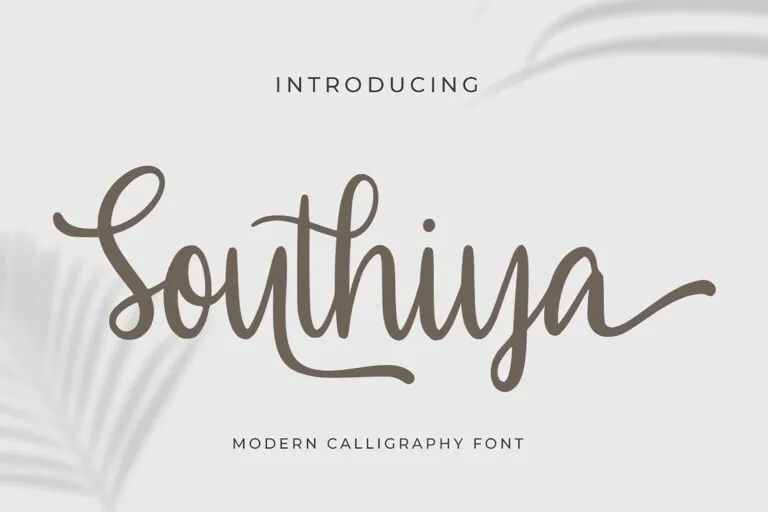
31 Best Magazine Cover Fonts for Awesome Text and Titles
The right magazine cover fonts are like a magical power. For hundreds of years, fonts have appealed to people and left a lasting image. Whether you’re creating a cutting-edge fashion magazine or a mouth-watering food magazine, you’ll always need an innovative font.
When it comes to editorial design, choosing the right font can be a big challenge. You can express your creativity and add the preferable font for you, while editing your images, to make them look more enticing. The fonts don’t only convey your mind’s eye but are also readable. Here, you will explore fonts and find out how they can carry your brand.
The Best Magazine Cover Fonts
You need something that works not just for the cover itself, but something that can lead customers’ eyes to flip through page after page. This font collection will give you multiple typography options for your publications’ needs.
Ahmad Bantani
Ahmad Bantani Font
Ahmad Bantani is a simple handwritten signature script font. Its beautiful characters will match your wide pool of designs.
Ving Winston
Ving Winston Font
Ving Winston is a handwriting-like script font to beautifies all types of magazine designs.
Fathony King
Fathony King Font
Fathony King is a modern script typeface. This one of the best magazine fonts has been created to make your title and text look elegant.
Mugen Ragi
Mugen Ragi Font
Mugen Ragi has ethereal curves and precision lines. It’s a good font choice for fashion and luxury brand magazines.
Alatas Script
Alatas Script Font
Alatas Script will be a good fit for headlines or magazine cover fonts of interior design or architecture magazines with its high contrast strokes and thin letter weight lines.
Bung Virgi
Bung Virgi Font
Bung Virgi can be a great deal for various kinds of magazine niches with its minimalist script style.
Tajur Puncak
Tajur Puncak Font
Tajur Puncak is an authentic handwritten font with soft flowing letters. It brings beauty and balance to your cover designs.
Ramly Zatins
Ramly Zatins as Magazine Cover Font
Ramly Zatins will bring your brand to an expensive yet expressive image with its delicate wavy lines.
Franky Rain
Franky Rain as Magazine Cover Font
Franky Rain is a gorgeous handmade signature script font. Bringing out graceful curves and sharp angles for any type of magazine that needs a stylish tone.
Flavellya
Flavellya Font
Flavellya is a great font for beauty and fashion magazines. Don’t hesitate to use it for invitations, business cards, or quote designs.
Mayestica
Mayestica Font
As the name sounds “Majestic”, this font is great for displaying the luxury of a brand e.g. wine and resort.
Williamson
Williamson Font
Williamson Font | Image Source: Stringlabscreative.com
Williamson is part of magazine cover fonts with a contemporary vibe. It brings your design to minimalist elegance.
Taniya Relly
Taniya Relly Font
Taniya Relly Font | Image Source: Stringlabscreative.com
The strokes make your positive intentions reach the customer, so you can use Taniya Relly font for self-love, life journey stories, and words of wisdom magazines.
Melvina Wayne
Melvina Wayne Font
Melvina Wayne Font | Image Source: Stringlabscreative.com
Melvina Wayne is a luxury but unique script font. It’s also perfect for your fashion, wedding invitation, and business card brand.
Mystique
Mystique Font
With a mysterious vibe, the Mystique font will captivate your biography, nature, or beauty & fashion magazine customers.
Southiya
Southiya Font
Southiya is a full-of-love font to add a romantic spark to your couples, moms & kids, or daily females magazines.
Carmelia
Carmelia Font